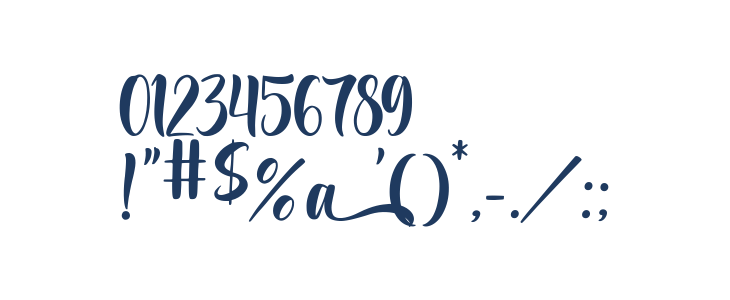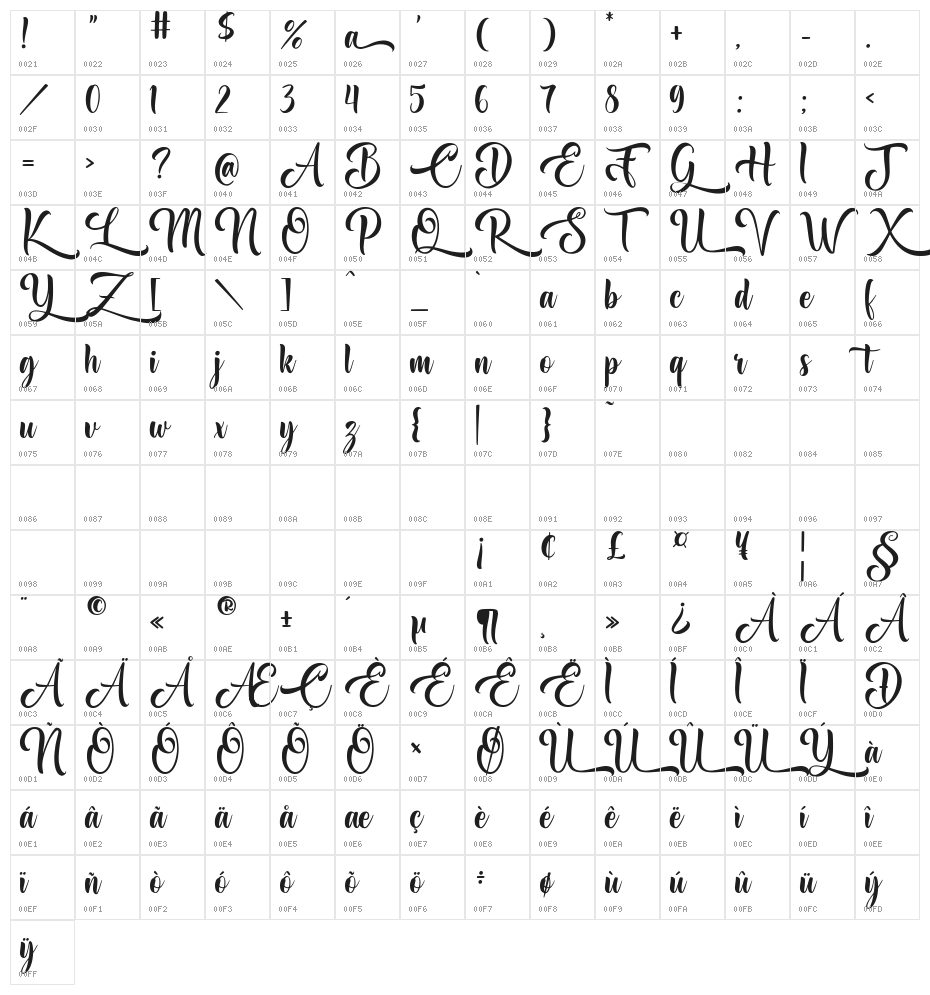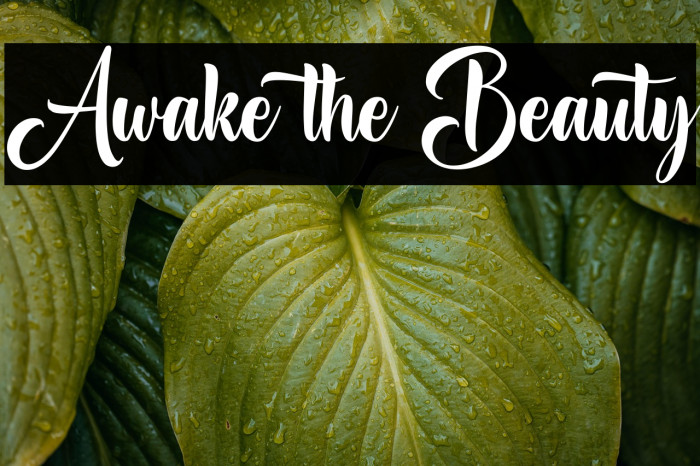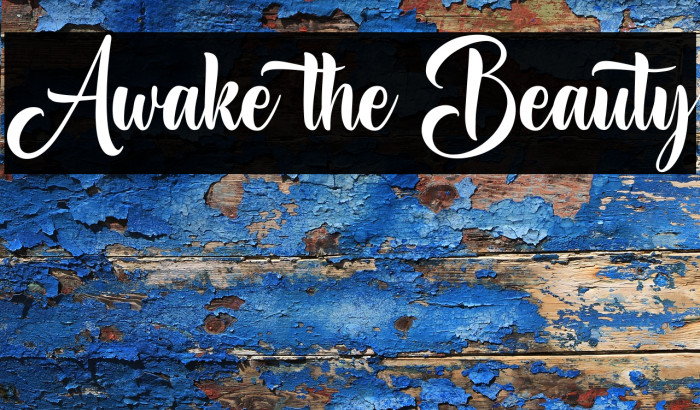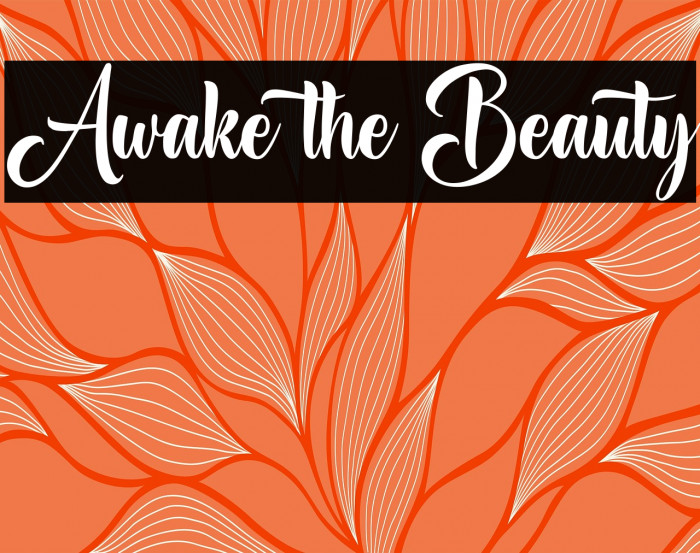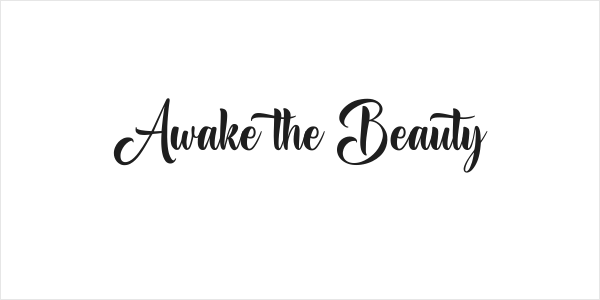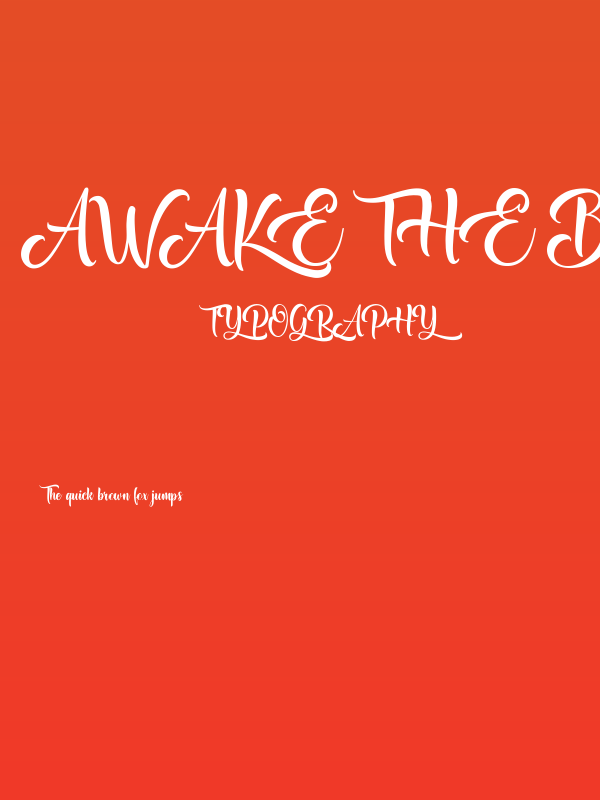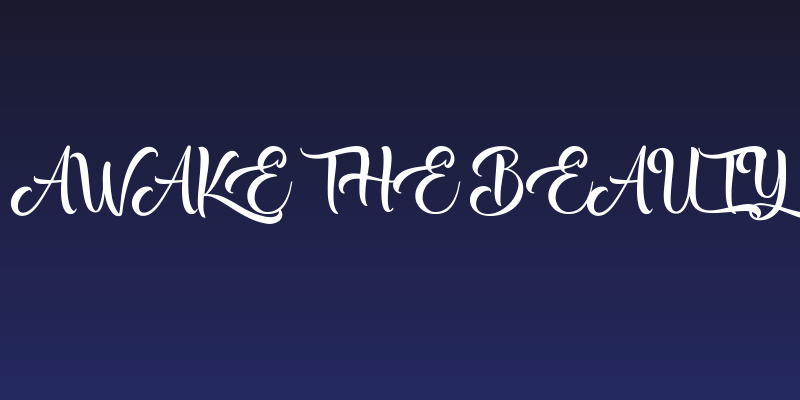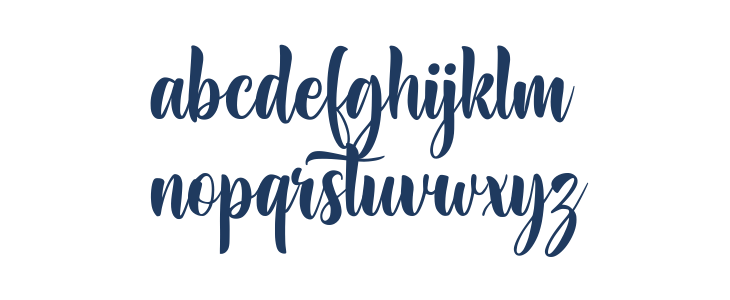
Awake the Beauty Font
Awake the Beauty Description
This font features an elegant and flowing script style, characterized by its smooth, cursive lines and artistic flourishes. The uppercase letters are ornate, with intricate loops and swirls that give a sense of movement and grace. The lowercase letters maintain a cohesive look, with a slightly more restrained design that complements the uppercase. Numbers are bold and clear, maintaining the script style while ensuring readability. Special characters are thoughtfully integrated, matching the overall aesthetic with their decorative yet functional design. This font exudes a sense of sophistication and creativity, making it ideal for projects that require a touch of elegance.